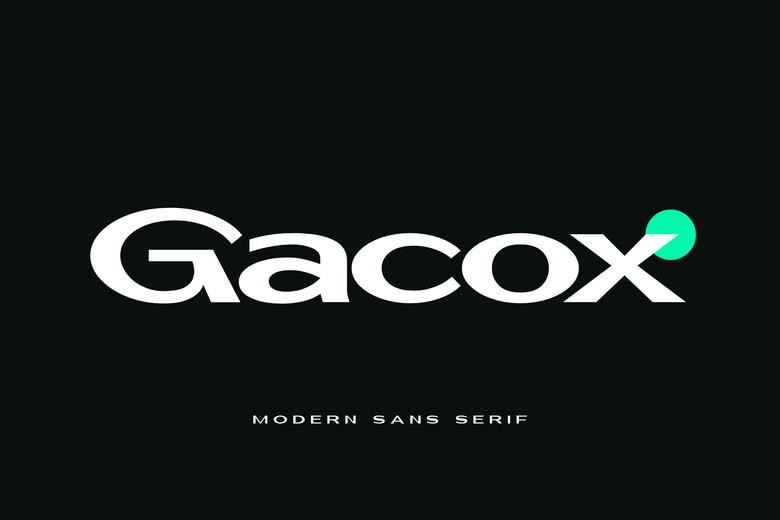
Gacox Font
Gacox is a striking modern sans-serif font created to make a memorable impact. Its clean lines, unique ligature style, and contemporary look bring a fresh edge to any design project, making it ideal for posters, branding, packaging, and digital media. This font ensures a bold visual appeal that stands out.
With strong, minimalist letterforms and stylish ligatures, Gacox provides both readability and a powerful presence, making it a great choice for attention-grabbing headlines, logos, and advertisements.
Gacox Sans Serif Font